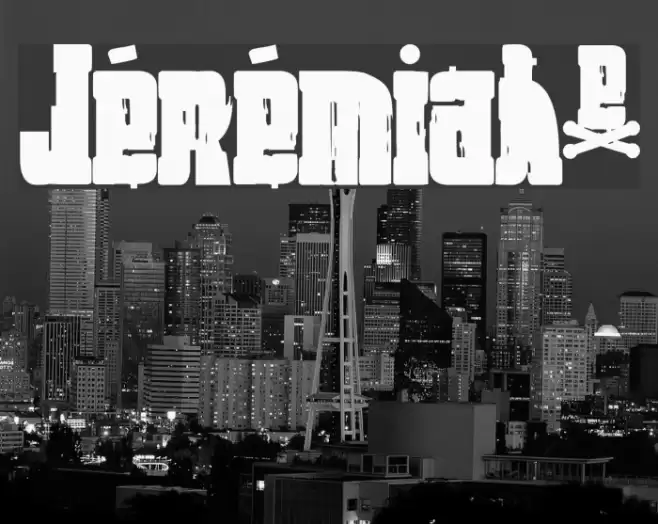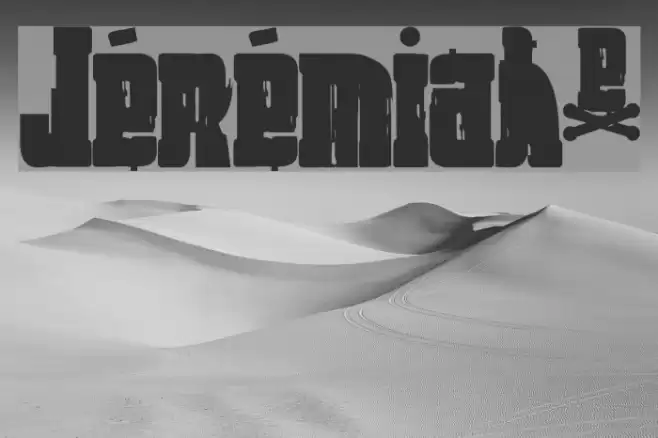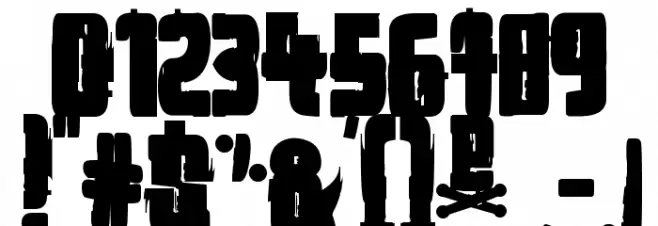
Jérémiah* Font
Jérémiah* Description
This font features a bold and heavy design with a distinctly rugged and distressed appearance. The characters are blocky and robust, with uneven edges and a worn texture that gives them a vintage, industrial feel. The uppercase and lowercase letters maintain a consistent weight, contributing to a strong visual impact. Numbers and special characters follow the same stylistic approach, ensuring uniformity across all glyphs. The font's unique style makes it ideal for projects that require a bold statement or a retro aesthetic.
A bold, distressed font with a rugged, vintage look from Uncategorized fonts.
- Proposed Projects: Ideal for posters, album covers, branding for vintage-themed products, or any design needing a strong, industrial vibe.
- Overall Style: Vintage